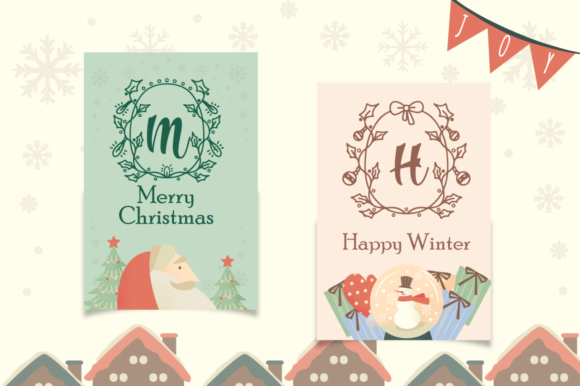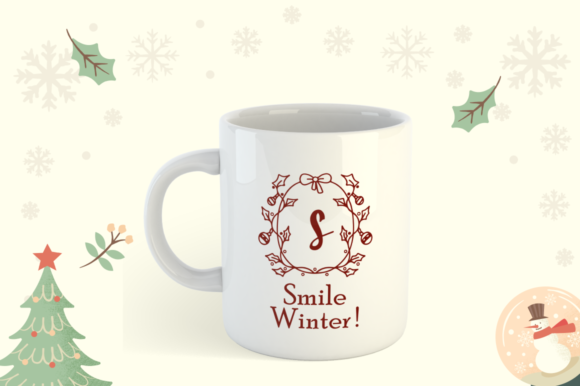
Dillana Christmas Monogram Font
Dillana Christmas Monogram Font is a free, unique, and cool font. This font is FREE to Download and suitable for designs such as t-shirts, sportswear, posters, logos, advertisements, clothing, and more.
Dillana Christmas Monogram Font is a free, unique, and cool font. This font is FREE to Download and suitable for designs such as t-shirts, sportswear, posters, logos, advertisements, clothing, and more. Whatever the topic, this font will be a great asset to your font collection, as it has the potential to enhance any creation.